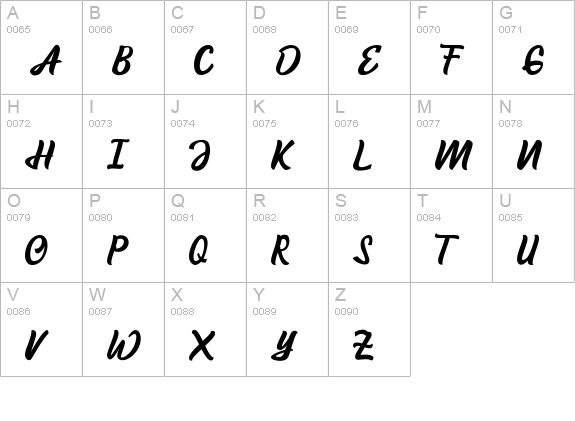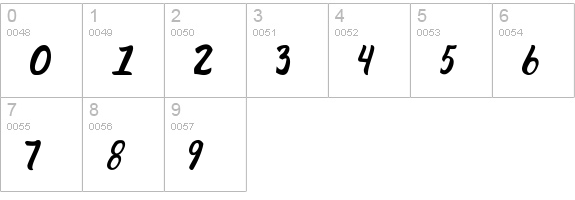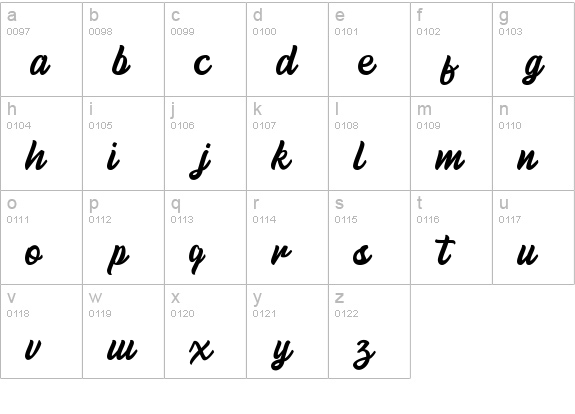
Malaga Script Font Details
Malaga Script is a completely free font in the Script category, designed by Maulana Arrahman. It has been downloaded 298 times and is available for Windows, Mac and Linux.
Malaga Script font is a beautifully crafted typeface that exudes elegance and sophistication. Its flowing lines and graceful curves make it perfect for adding a touch of class to any project. This versatile script font is ideal for a wide range of design applications, from wedding invitations to branding materials.